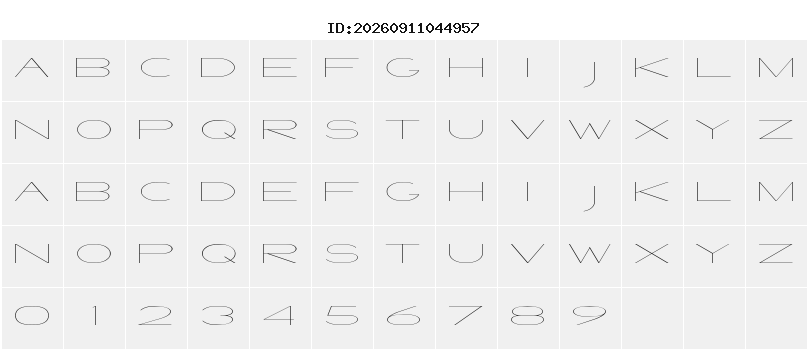
• Font Name: Venitian Sound System
• Full Font Name: Venitian Sound System
Venitian Sound System.ttf is a modern, elegant sans-serif font designed for ultimate readability and visual harmony. Perfect for branding, headlines, web design, and print materials.